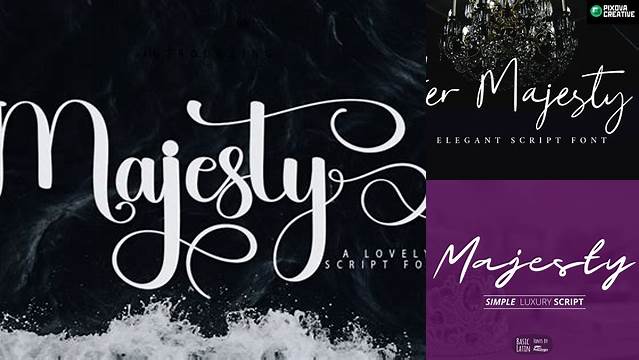
Majesty Luxury Font Free Download: Unleash Elegance
Are you on the hunt for a font that screams luxury and sophistication? Look no further! The Majesty Luxury Font is here, ready for you to download and sprinkle a touch of elegance onto your projects. This article dives deep into what makes this font a standout choice, its ideal uses, and, of course, how to get your hands on it for free. Get ready to elevate your designs, guys!
What Makes Majesty Luxury Font Special?
When it comes to fonts, certain qualities separate the wheat from the chaff. The Majesty Luxury Font isn't just any typeface; it's a statement. Its carefully crafted letterforms exude a sense of opulence and refinement, making it a fantastic choice for projects where you want to make a lasting impression. The design of this font is typically characterized by flowing curves, delicate serifs, and a balanced weight distribution. These elements come together to create a visual harmony that's both pleasing to the eye and inherently luxurious. The versatility of the Majesty Luxury Font allows it to shine in various applications, from branding and logo design to editorial layouts and wedding invitations. One of the key features that make this font stand out is its ability to capture attention without being overly flashy. It's a font that speaks volumes through its subtle details and elegant execution. The designers behind Majesty Luxury Font have poured their creativity into crafting a typeface that embodies sophistication and timelessness. The curves, the angles, and the overall composition are meticulously designed to achieve a balance of readability and artistic flair. The font offers a range of weights and styles, providing designers with flexibility in creating diverse and engaging designs. You can play around with different weights to achieve the desired look and feel for your project. Whether you're looking to create a bold headline or a delicate body of text, Majesty Luxury Font has you covered. Furthermore, this font is designed with the user in mind, ensuring that it is easy to install and use across various design software and platforms. The characters are meticulously crafted to ensure that they look great in both large and small sizes, maintaining their elegance and readability. The Majesty Luxury Font is more than just a set of letters; it's a design tool that empowers you to create stunning visuals that leave a mark. The careful attention to detail in every aspect of the font, from the individual letterforms to the overall aesthetic, makes it a top choice for designers who want to add a touch of grandeur to their work. The typeface has a unique ability to convey a sense of quality and exclusivity, making it a favorite among designers working on premium branding projects. The Majesty Luxury Font is a true embodiment of luxury, providing the ideal canvas for creative projects that demand a touch of class and sophistication. It is an exceptional choice for anyone looking to infuse their designs with a sense of elegance and timelessness.
Where Can You Use Majesty Luxury Font?
The beauty of the Majesty Luxury Font lies in its versatility. It's like that little black dress – it just works, you know? Its elegance makes it perfect for a wide range of projects. First off, imagine using it for your brand's logo. It's an instant upgrade, promising your audience that you mean business with a touch of class. Then there's the world of wedding invitations. Seriously, using this font will transform your invitations from ordinary to extraordinary, setting a tone of romance and sophistication that guests will instantly adore. For editorial projects, think magazines and brochures, where the Majesty Luxury Font can be used for headlines and body text. It adds a layer of sophistication that grabs readers' attention and keeps them engaged. The font is also great for creating packaging designs for premium products. The Majesty Luxury Font elevates the presentation of products, giving the impression that the contents within are just as luxurious. Also, if you're into web design, incorporating this font into website headings and call-to-action buttons can make a lasting impression on visitors. However, it's crucial to use it wisely, ensuring it complements your overall design without overwhelming it. The font's inherent elegance makes it a perfect fit for any project aiming for a high-end, sophisticated aesthetic. Whether it's used for a business card, a social media post, or a complete branding identity, the Majesty Luxury Font will help you set the right tone. It's not just about looking good; it's about communicating a sense of premium quality that resonates with your audience. Using the Majesty Luxury Font will distinguish your work from the mundane and bring a unique, luxurious touch to your designs. The possibilities are endless with this versatile font, and with a little creativity, it will help you make a memorable impression.
Tips for Using Majesty Luxury Font Effectively
So, you've got the font, now what? The key to using the Majesty Luxury Font effectively lies in balance. This font is designed to stand out, so don't overuse it. Try incorporating it sparingly in your designs. For example, use it for headlines, titles, or key phrases, and pair it with a simpler, more readable font for the body text. This combination provides an attractive contrast and avoids overwhelming your audience. Choosing the right color palette is also crucial. The Majesty Luxury Font pairs beautifully with colors that echo its elegance: think rich golds, deep blacks, and soft creams. These colors complement the font's luxurious feel and elevate your design. Also, make sure that your typography is well-spaced and easily readable. Adjust the kerning (the space between individual letters) and leading (the space between lines of text) to optimize readability. A well-crafted layout enhances the aesthetic appeal of the Majesty Luxury Font, ensuring that your message is clear and engaging. When designing, consider your audience. The Majesty Luxury Font exudes a sense of sophistication and is best suited for projects that target an audience interested in high-end goods or experiences. However, its timeless appeal makes it suitable for various other applications. Furthermore, before finalizing your design, always test how the font looks in different sizes and on different devices. This will help you ensure that the font remains legible and aesthetically pleasing. By keeping these tips in mind, you'll be able to make the most of the Majesty Luxury Font and transform your projects. The careful pairing of the font, color scheme, and typography creates designs that capture attention and leave a lasting impression. By understanding its characteristics and nuances, you can create designs that are both visually stunning and highly effective.
Conclusion: Elevate Your Designs with Majesty Luxury Font
In a nutshell, the Majesty Luxury Font is a powerful tool for designers who want to inject sophistication and elegance into their work. With its graceful design, easy installation, and free availability, it's a must-have for anyone looking to create stunning visuals. So go ahead, download the font, experiment with it, and watch your designs come to life! Have fun creating, guys!